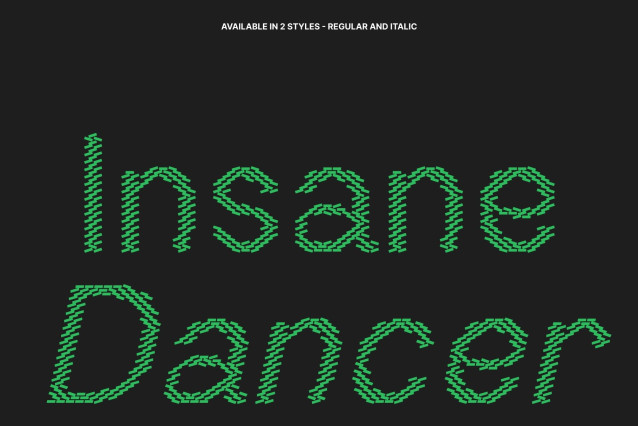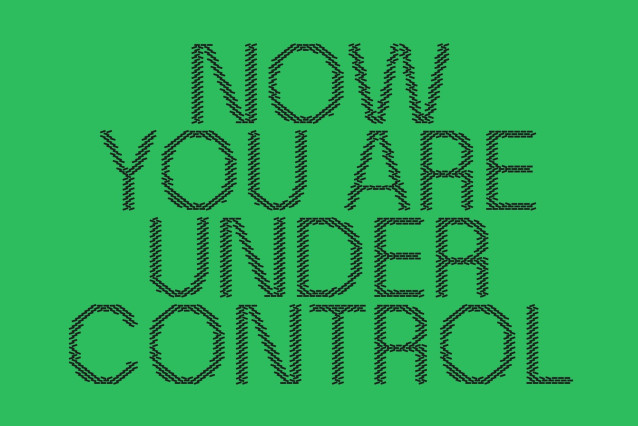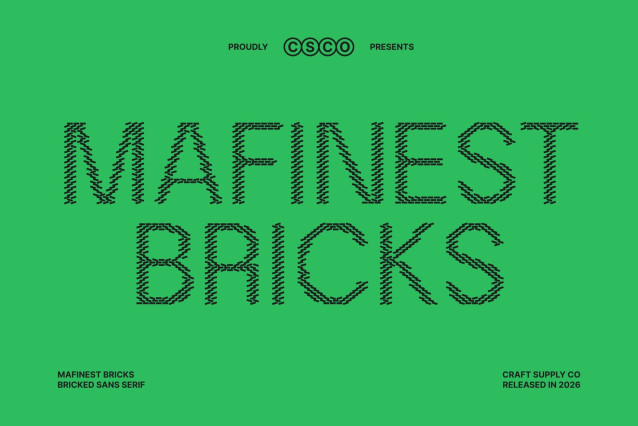
Mafinest Bricks – Modern Sans Serif Font: Where Urban Strength Meets Structured Elegance
Geometric Forms with Bold Architectural Character
This is a modern sans serif font that blends professional clarity with a distinctive brick-inspired decorative texture. Designed to resemble letters constructed from stacked bricks, the font creates a powerful architectural presence filled with urban energy and structural strength. Its bold geometric forms deliver a confident and highly recognizable visual identity perfect for impactful display design.
Urban Style with Strong Modern Appeal
Combining clean sans serif construction with textured brick-like detailing, this font delivers a typographic style that feels modern, industrial, and expressive. The decorative structure adds depth and personality while preserving readability, making the font suitable for projects that demand both clarity and visual power.